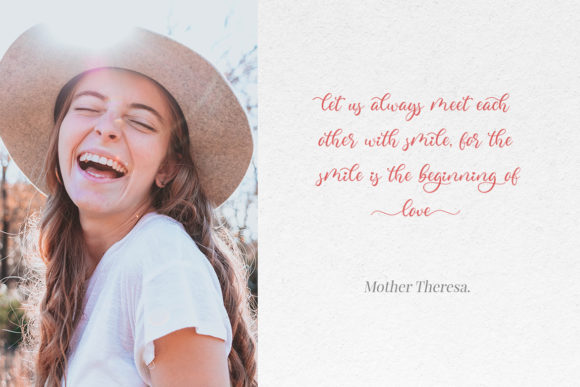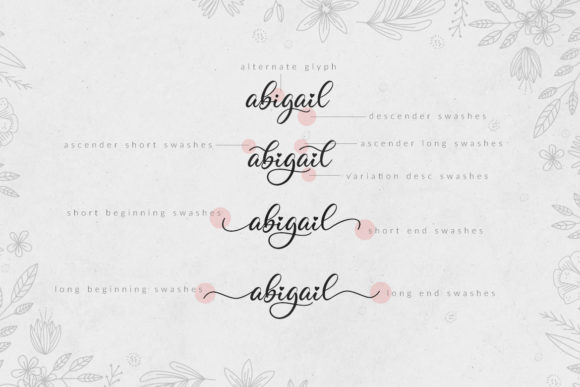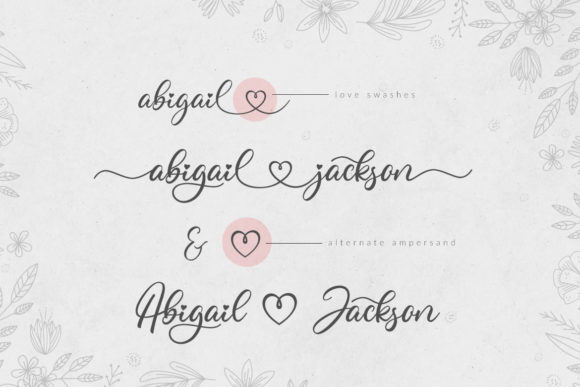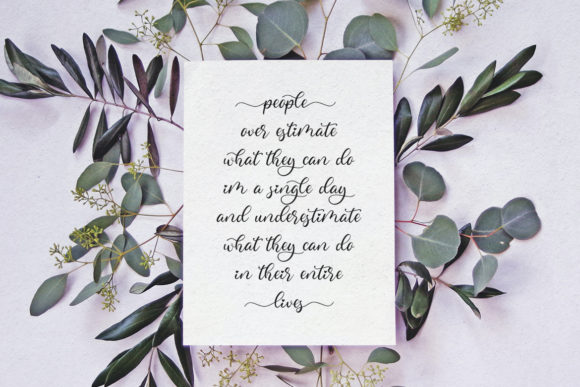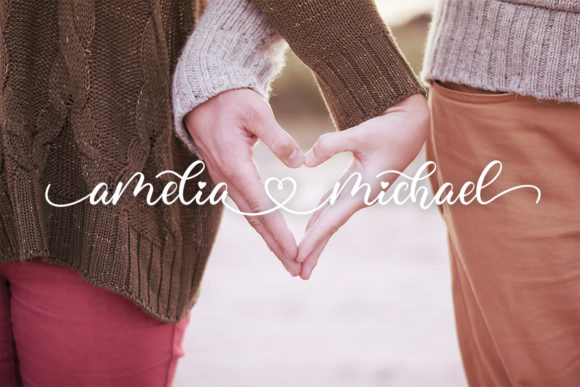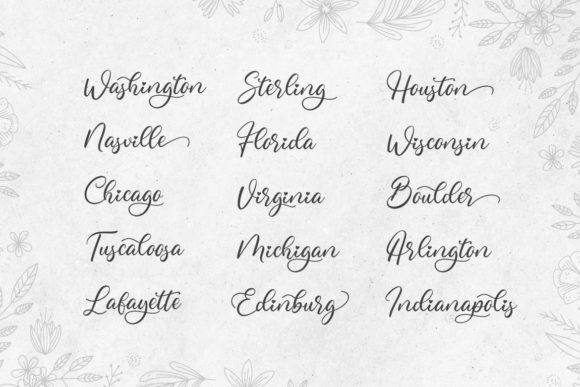
Introducing Abigail Font: The Ultimate Romantic Cursive Handwritten Font
Are you a designer, crafty person, or someone who appreciates beautiful typography? Look no further! We’re excited to introduce you to Abigail Font, a stunning romantic and cursive handwritten font that’s sure to capture your heart. Featuring lovely hearts as ornaments, Abigail is the perfect choice for creating gorgeous wedding invitations, beautiful stationary art, eye-catching social media posts, and much more!
The Charm of Abigail Font
Abigail Font is a unique and versatile typeface that exudes romance and elegance. Its cursive handwritten style is reminiscent of traditional calligraphy, but with a modern twist that makes it perfect for a wide range of design projects. The font’s lovely heart ornaments add a touch of whimsy and playfulness, making it ideal for designs that require a personal and sentimental touch.
Uses for Abigail Font
Abigail Font is incredibly versatile, making it suitable for various design projects, including:
- Wedding Invitations: Create beautiful and romantic wedding invitations that set the tone for the big day.
- Stationary Art: Design stunning stationary art, including greeting cards, thank-you cards, and letters.
- Social Media Posts: Add a touch of elegance to your social media posts, making them stand out from the crowd.
- Branding and Packaging: Use Abigail Font to create a unique and memorable brand identity for your business.
- Digital Art: Create breathtaking digital art, including illustrations, graphics, and mixed media projects.
Why Choose Abigail Font?
With Abigail Font, you’ll enjoy a range of benefits, including:
- Unique and Exclusive Design: Abigail Font features a one-of-a-kind design that’s sure to make your projects stand out.
- High-Quality Output: Abigail Font ensures high-quality output, whether you’re designing for print or digital platforms.
Tips for Using Abigail Font
To get the most out of Abigail Font, here are some valuable tips:
- Experiment with Font Sizes and Styles: Play around with different font sizes and styles to create visual interest and hierarchy.
- Pair with Other Fonts: Combine Abigail Font with other fonts to create a unique and harmonious typography combination.
- Use Heart Ornaments Creatively: Make the most of Abigail Font’s lovely heart ornaments by using them as accents, dividers, or even as a design element.
| Font Name | Abigail Font |
| Author | Hustletter |
Abigail Font is a romantic and cursive handwritten font that’s sure to capture your heart. With its lovely heart ornaments and incredibly versatile style, it’s the perfect choice for designers, crafters, and anyone who appreciates beautiful typography. Whether you’re creating wedding invitations, stationary art, social media posts, or more, Abigail Font is the ultimate choice for adding a touch of elegance and romance to your designs.
Get Ready to Fall in Love with Abigail Font!